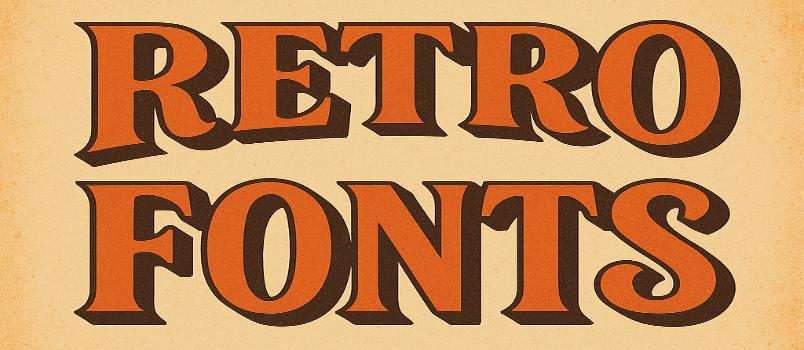
In the ever-evolving world of design, retro fonts have emerged as a captivating choice that evokes nostalgia while adding a unique flair to modern projects. Whether you are a graphic designer seeking to enrich your portfolio or a casual creator looking to enhance your personal projects, free retro fonts can be a treasure trove of creative possibilities.
This blog post explores the diverse range of retro fonts available at no cost, offering insights on how to effectively incorporate them into your work. Join us as we delve into the charm and versatility of retro fonts, and discover how they can elevate your designs to new heights.
Retro Fonts
Americana Dreams
AddLoops
Hood Ornament
Anchor Steam
Arwen
Atlas
Bad Films
Betty Noir
Dreamland
Rechtman
Cassandra
Shangrila
Khedive
Drumag Studio
Top Speed
Dusty Rose
Milton Burlesque
New Venice
Beetlej